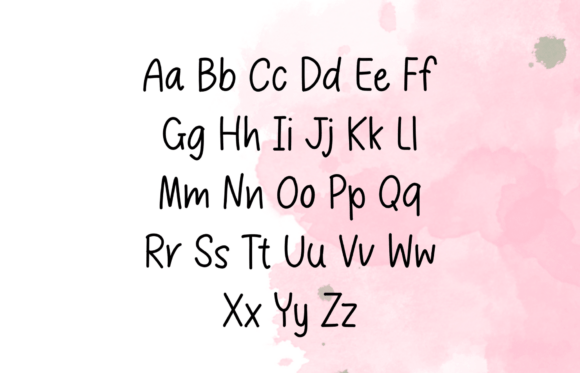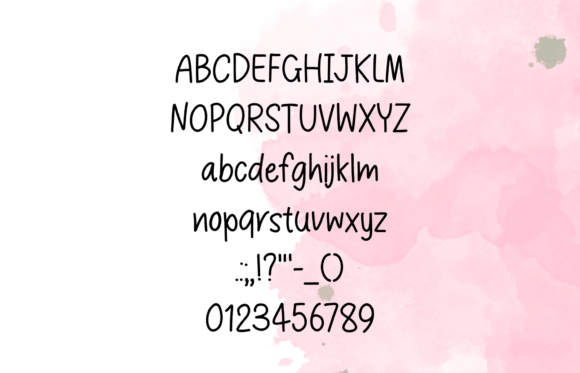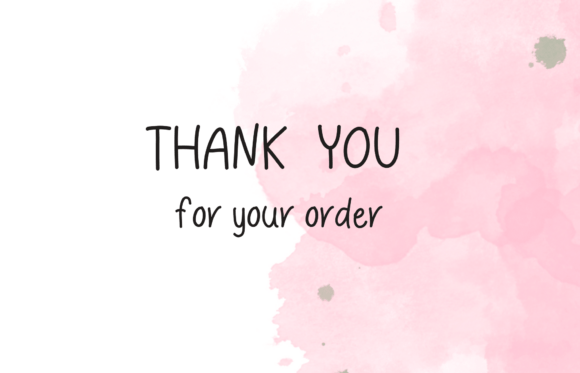
Blooming Font: The Sweet and Friendly Handwritten Display Font
Are you looking for a font that can add a touch of sweetness and friendliness to your designs? Look no further than Blooming Font, a beautiful handwritten display font that is perfect for a variety of creative projects. In this article, we’ll take a closer look at Blooming Font, its features, and how you can use it to elevate your designs.
What is Blooming Font?
Blooming Font is a sweet and friendly handwritten display font that is designed to bring a touch of fun and playfulness to your designs. With its cute and charming lettering style, this font is ideal for crafts, digital design, presentations, or writing wedding invitations, cards, or any other design that might need a fun touch.
Key Features of Blooming Font
- Cute and Fun Design: Blooming Font has a unique and charming design that is sure to capture the attention of your audience.
- Handwritten Style: The font has a handwritten style that gives it a personal and friendly touch.
- Versatile: Blooming Font can be used for a variety of design projects, including crafts, digital design, presentations, wedding invitations, cards, and more.
- Easy to Read: The font is easy to read, making it perfect for designs that require a clear and legible text.
Use Cases for Blooming Font
Blooming Font is a versatile font that can be used for a variety of design projects. Here are some use cases where Blooming Font can shine:
- Crafts: Blooming Font is perfect for craft projects, such as scrapbooking, DIY cards, and other handmade crafts.
- Digital Design: The font can be used for digital design projects, such as social media graphics, blog posts, and website headers.
- Wedding Invitations: Blooming Font is a great choice for wedding invitations, save-the-date cards, and other wedding-related designs.
- School Projects: The font is ideal for use in school for both teachers and students, making it perfect for educational materials, such as worksheets, posters, and presentations.
- Comic Book Style: Blooming Font can be used to create comic book-style designs, such as speech bubbles, captions, and titles.
- Game Online: The font can be used for online games, such as game titles, buttons, and other UI elements.
- Love Shirts: Blooming Font is perfect for designing love shirts, such as Valentine’s Day-themed t-shirts and hoodies.
- Posters: The font can be used to create eye-catching posters for movies, events, and other promotional materials.
- Movie Titles: Blooming Font can be used to create movie titles, movie posters, and other film-related designs.
Why Choose Blooming Font?
There are many reasons why you should choose Blooming Font for your design projects. Here are a few:
- Unique Design: Blooming Font has a unique and charming design that will set your designs apart from others.
- Versatile: Blooming Font can be used for a variety of design projects, making it a great addition to your font library.
- Fun and Playful: The font has a fun and playful design that will add a touch of personality to your designs.
In conclusion, Blooming Font is a sweet and friendly handwritten display font that is perfect for a variety of creative projects. With its cute and charming design, versatility, and ease of use, Blooming Font is a great choice for designers, crafters, and anyone looking to add a touch of fun and playfulness to their designs. So why not give Blooming Font a try and see how it can elevate your designs?